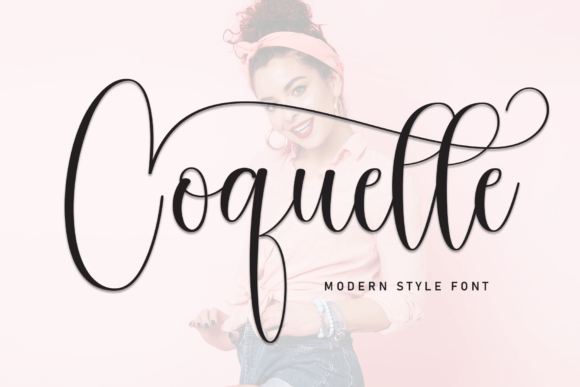
Discover the Allure of the Coquette Font
Have you ever been browsing through a beautifully designed magazine or packaging and felt an instant sense of wonder? That’s the magic of great design – the ability to evoke emotions and create connections with the viewer. As a designer, you know that the right font can make all the difference in bringing your vision to life.
Enter the Coquette Font, a modern handwritten font that seamlessly combines elegance with a touch of whimsy. Its fluid, organic strokes, and refined letterforms make it ideal for upscale packaging, branding, and editorial designs. The Coquette Font is more than just a font – it’s a way to add a bespoke, artisanal feel to any project.
Whether you’re working on a high-end packaging design or a luxury brand’s marketing campaign, the Coquette Font is a valuable addition to your design toolkit. Its versatility and sophistication make it a go-to choice for designers looking to create memorable and impactful designs.
Coquette Font Key Features
- Font Family: Coquette is a script font family that includes 4 styles: Regular, Italic, Bold, and Bold Italic.
- Size: The font family includes a range of sizes from 8pt to 100pt, making it suitable for various design applications.
- Resolution: Designed to work well at resolutions of 72 dpi and 96 dpi, making it ideal for digital and print media.
- Unique Characteristics: Coquette features a whimsical, handwritten feel with flowing connections and subtle flourishes, making it perfect for adding a touch of elegance and sophistication to designs.
- Languages: Supports a wide range of languages, including Latin-based languages, making it a versatile choice for global designs.
Coquette Font Review
Overall, I found the Coquette font to be a beautiful, elegant script font that can add a touch of sophistication to any design project. ✨ The font’s flowing lines and cursive feel make it perfect for creating eye-catching headings and titles.
One of the things I love about Coquette is its versatility. ✨ It can be used for a variety of design projects, from wedding invitations to fashion magazines, and it always looks stunning. ✨ The font also has a wide range of weights and styles, which makes it easy to find the perfect fit for your design needs.
- ⚠️ Limited legibility in small font sizes: While Coquette is a beautiful font, it can be difficult to read in small font sizes, which may limit its use in certain design projects.
- ⚠️ May not be suitable for body text: Due to its flowing, cursive style, Coquette may not be the best choice for body text, where legibility is crucial.
While Coquette has some limitations, it’s a beautiful font that can add a touch of elegance to any design project. With its versatility and wide range of styles, it’s a great choice for designers looking to create eye-catching headings and titles. However, it may not be the best choice for projects where legibility is crucial or where body text is a primary focus.
Getting the Most Out of Coquette Font
To get the most out of Coquette Font, use it for titles, headings, and other design elements where you want to add a touch of elegance and sophistication. Experiment with different font sizes, colors, and styles to create visually appealing designs.
Coquette Font is perfect for designing wedding invitations, greeting cards, and other stationery items. It’s also great for creating elegant business cards, logos, and marketing materials.